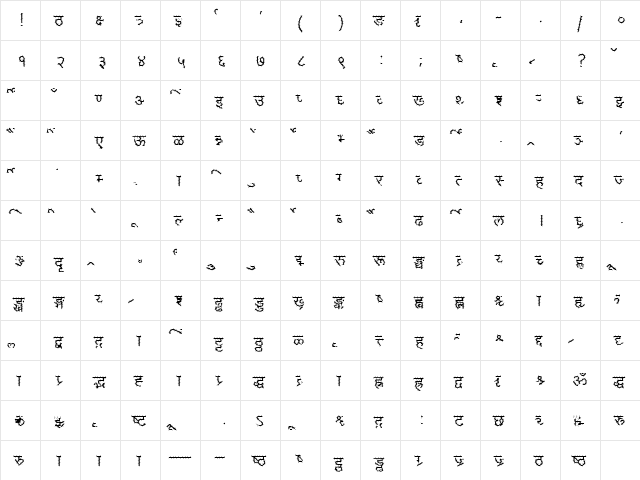
AkrutiDevCactus Normal
AkrutiDevCactus takes a measured approach to typography — its balanced proportions and neutral character make it a reliable workhorse for both digital and print work.